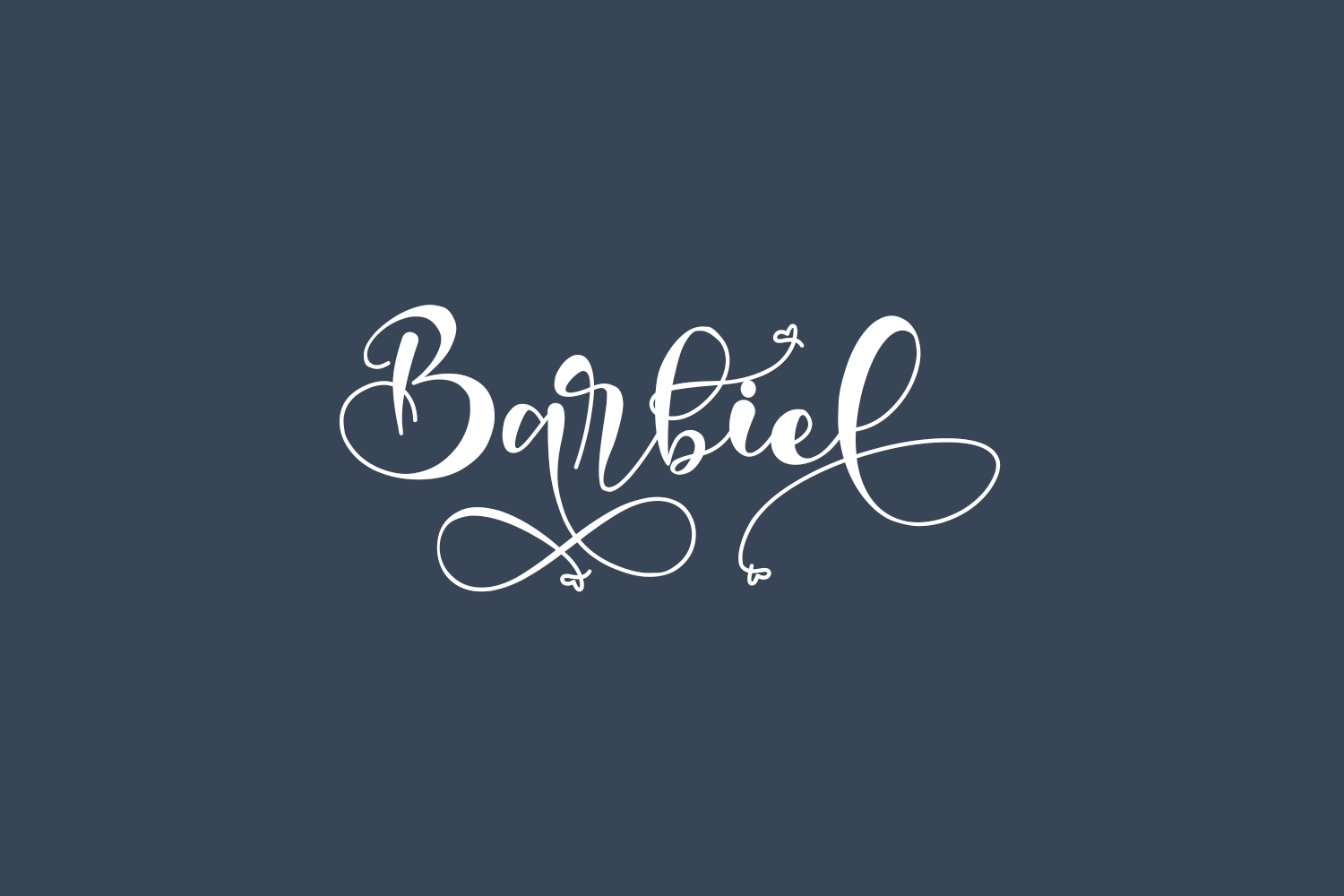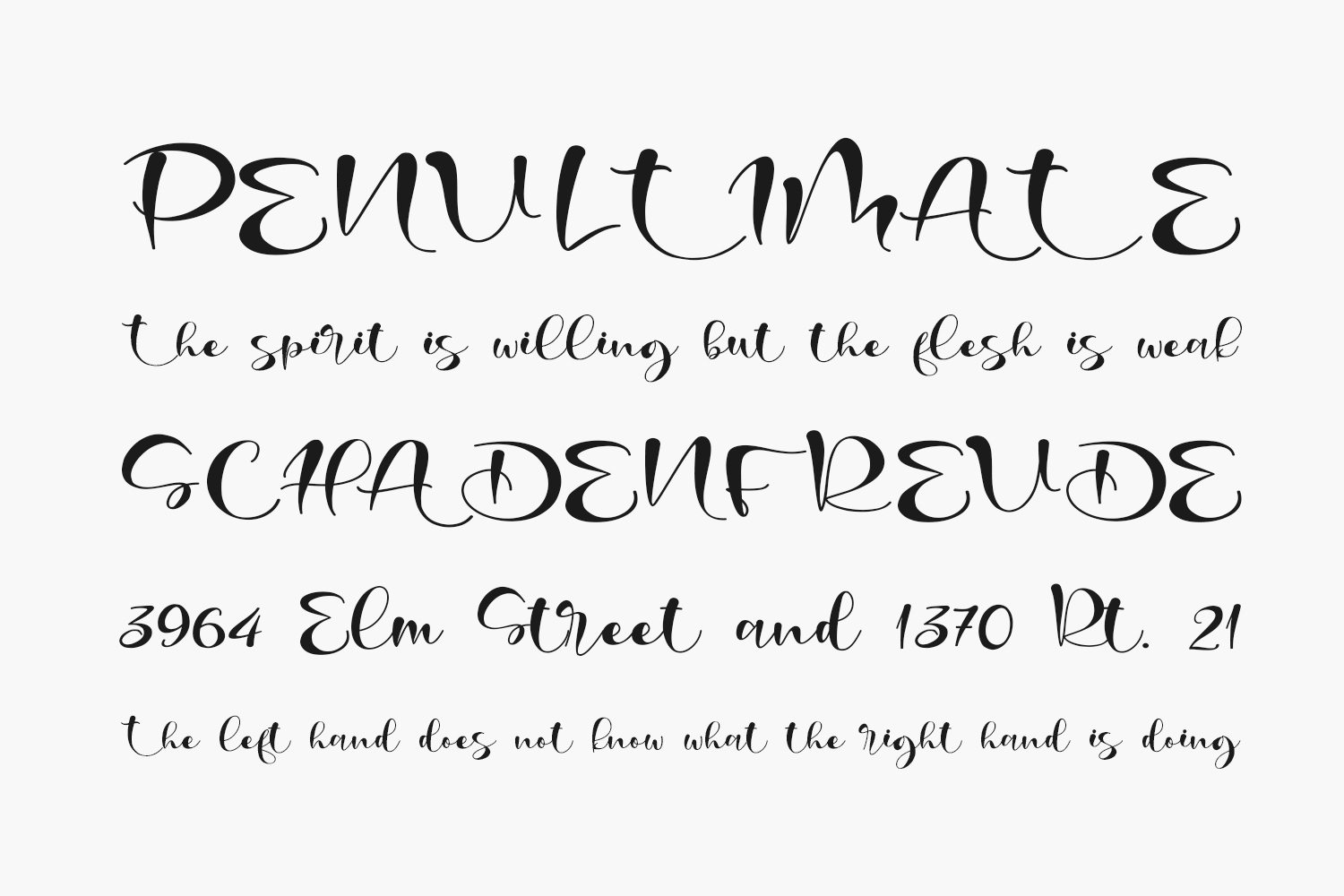
Barbiel Free Font is a romantic and festive handwritten font with a beautiful monogram. It is ideal for holiday-themed greeting cards and for any crafting project that requires a dreamy touch. Barbiel Free Font was designed by Letterara and is free for personal use only. Please purchase the full version for commercial use.